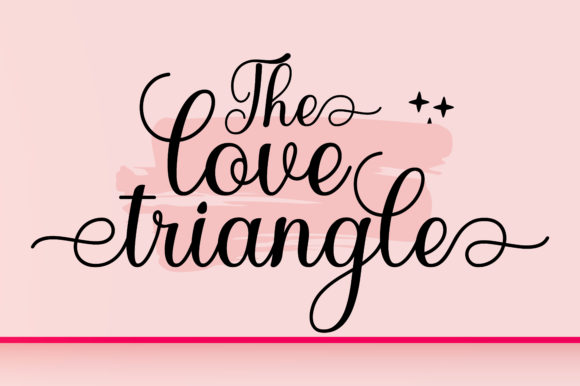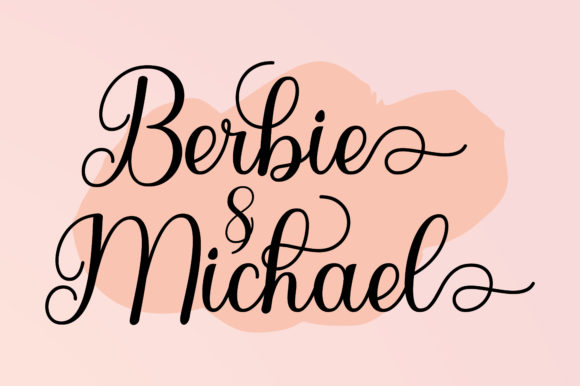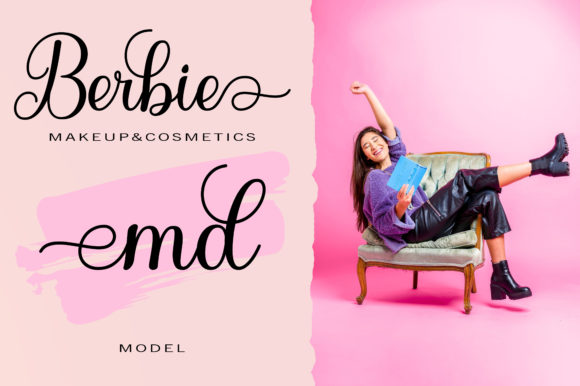
Introduction to Painting Love Font
As a designer, there’s nothing quite like the thrill of landing on that perfect font to elevate a creative project. It’s a moment of pure joy, when every element falls into place and your vision comes to life. For me, that moment was when I stumbled upon the enchanting Painting Love Font. Its romantic and sweet calligraphy style, with characters dancing along the baseline, is the epitome of luxury and sophistication.
What sets Painting Love Font apart is its PUA encoding, which allows for seamless access to all the amazing glyphs and ligatures. This means that designers can unleash their creativity without any limitations, experimenting with new combinations and styles to achieve that perfect look. Whether you’re working on a high-quality design project or simply looking for a unique touch, Painting Love Font is a valuable resource that’s sure to impress.
Key Features of Painting Love Font
- Unique hand-painted design: The Painting Love Font boasts a unique hand-painted design, adding a touch of creativity and personality to any project.
- Perfect for creative projects: This font is ideal for use in creative projects, such as greeting cards, posters, and social media graphics, where a high-quality, eye-catching design is essential.
Honest Review: Painting Love Font
- ✨ The high quality of the font is impressive, with clear and crisp lines that make it perfect for both digital and print designs.
- ✨ The transparent background makes it easy to use in various design contexts, from web to print materials.
- ✨ The font’s playful and whimsical nature makes it an excellent choice for projects that require a touch of personality.
- ⚠️ The font may not be suitable for formal or corporate designs, as its playful nature may not align with the tone required.
Overall, I’m quite impressed with the Painting Love Font. Its high quality, versatility, and playfulness make it an excellent addition to any design resource collection. While it may have some limitations, I believe it’s a valuable asset for creatives looking to add a touch of personality to their projects.
The Painting Love Font is perfect for a variety of designs, including social media posts, business cards, and presentations. You can also use it in creative projects, such as art prints and invitations.